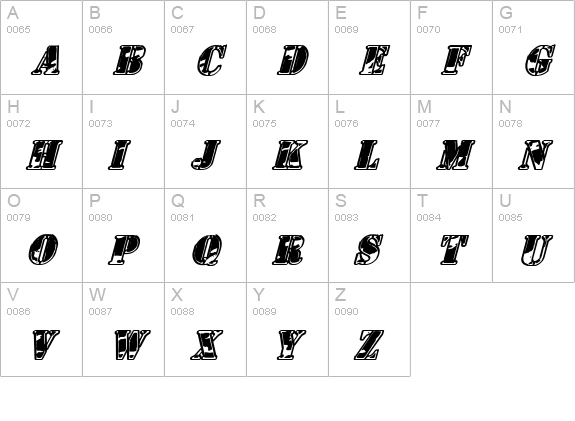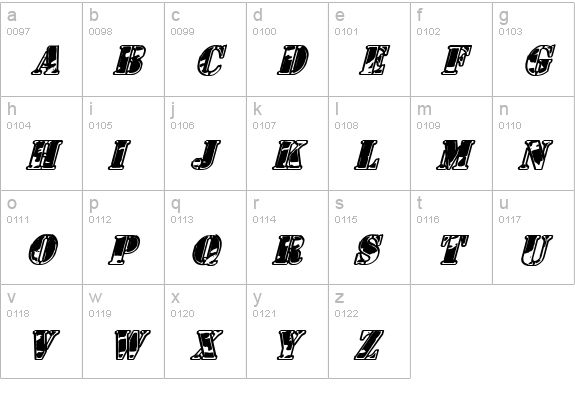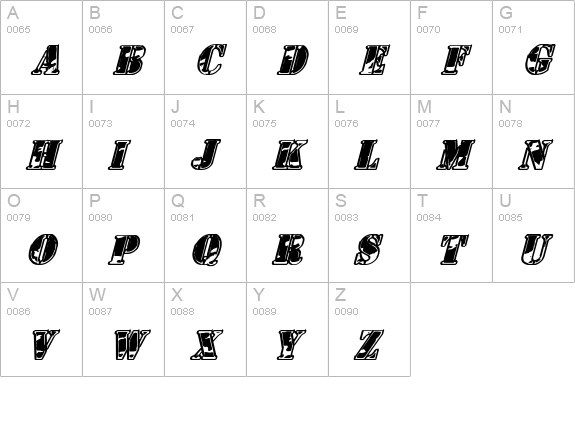
1st Cav II Italic Font Details
1st Cav II Italic is a distinctive, italic variant in the 1st typeface family \xE2\x80\x94 well suited to design and typography projects.
1st Cav II Italic font is a stylish and modern typeface that exudes elegance and sophistication. Its sleek and slanted design adds a touch of flair to any project, making it perfect for headings, titles, and branding materials. The italicized characters lend a sense of dynamism and movement, creating a visually engaging text. What's even better is that 1st Cav II Italic font is available for free download at FontsMarket.com. This means you can easily access this high-quality font without any cost, making it a fantastic option for both personal and commercial use. Don't miss out on the opportunity to enhance your designs with this beautiful typeface – download 1st Cav II Italic font today!